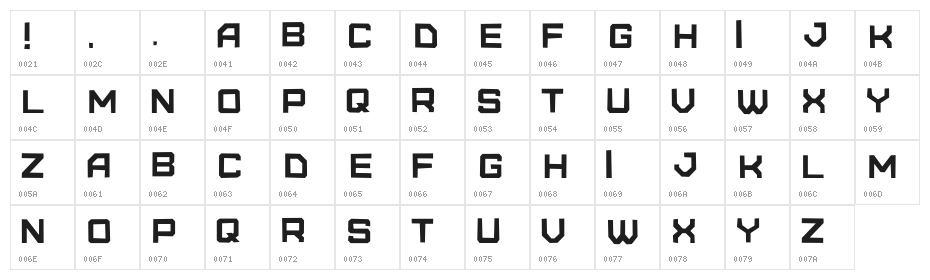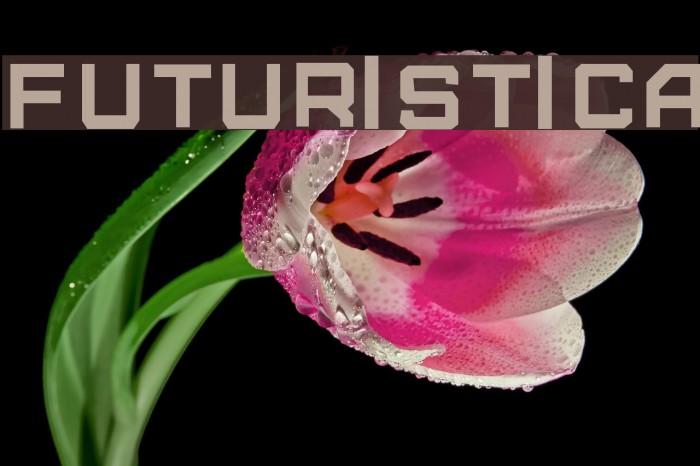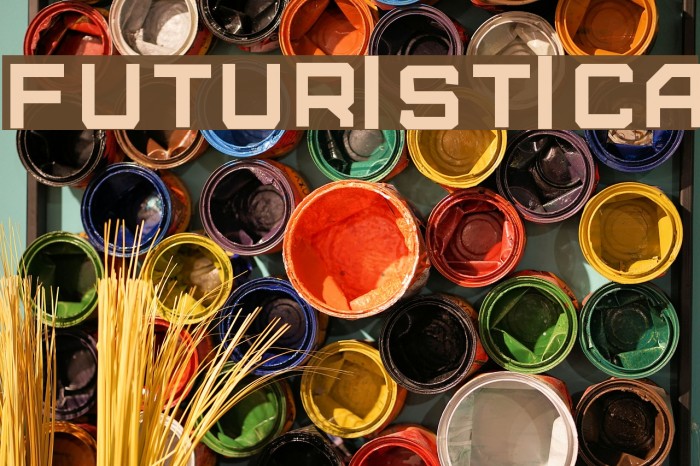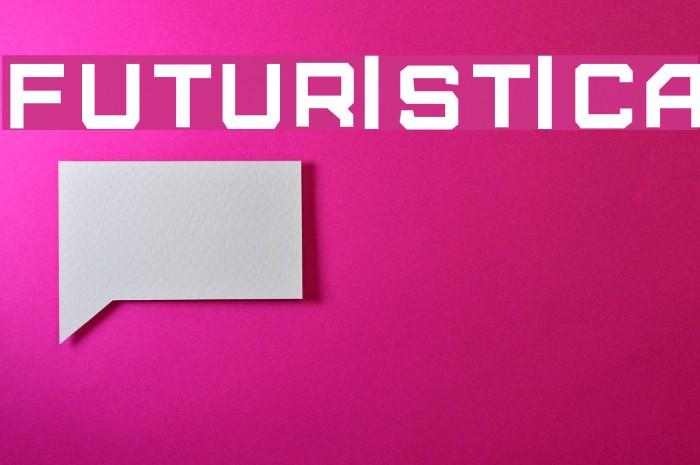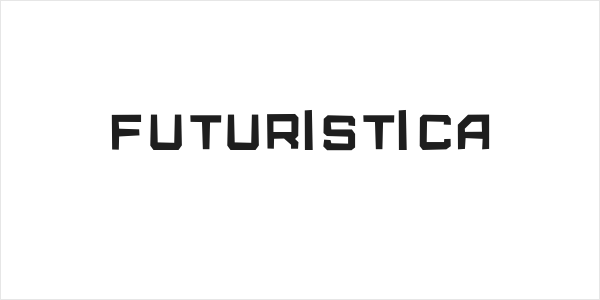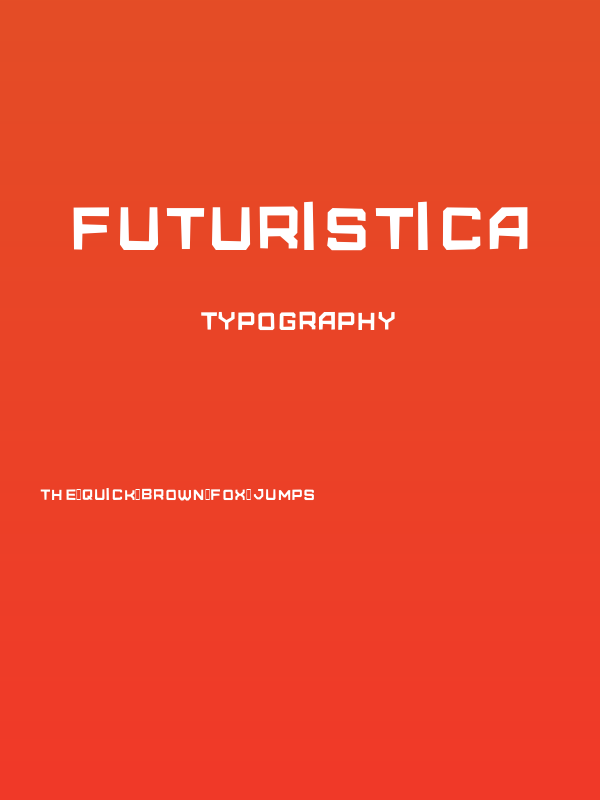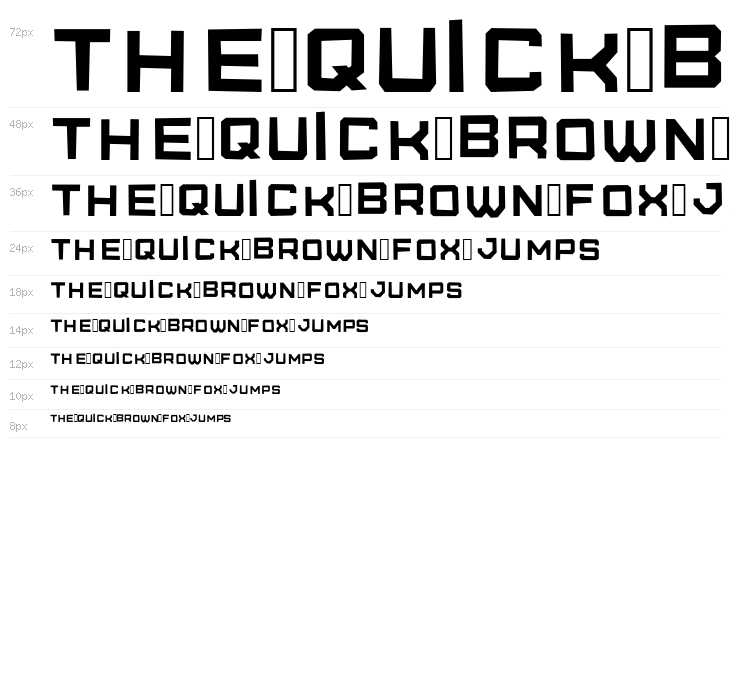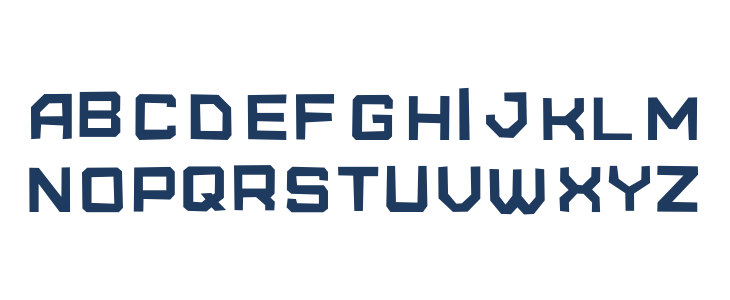
Futuristica Font
Futuristica Description
This font features a bold, futuristic design with geometric shapes and sharp angles. The uppercase letters are distinct with a blocky appearance, while the lowercase letters maintain a consistent style that complements the uppercase. The numbers and special characters follow the same geometric theme, making the font cohesive and visually striking. Its design is reminiscent of digital or sci-fi aesthetics, making it suitable for modern and tech-oriented projects. The uniformity in stroke width and the angular cuts give it a unique and edgy look.
| Proposed Projects | Ideal for tech branding, sci-fi movie posters, video game titles, and digital media. |